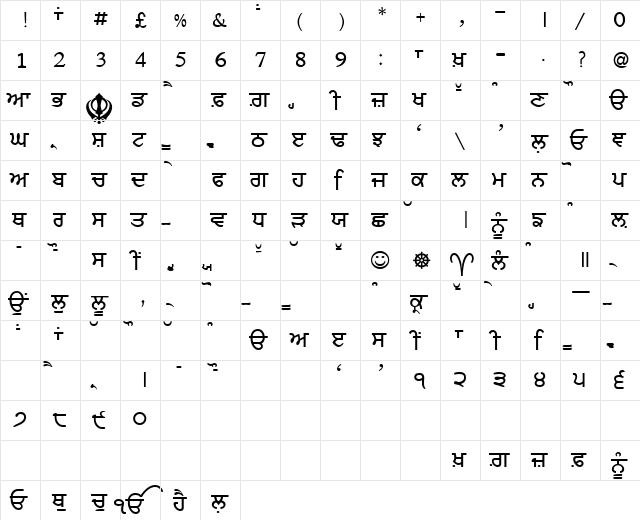
MUNNA Normal
Design Context for MUNNA Typeface
MUNNA is a composed and adaptable typeface that performs quietly and consistently across a wide range of design contexts.